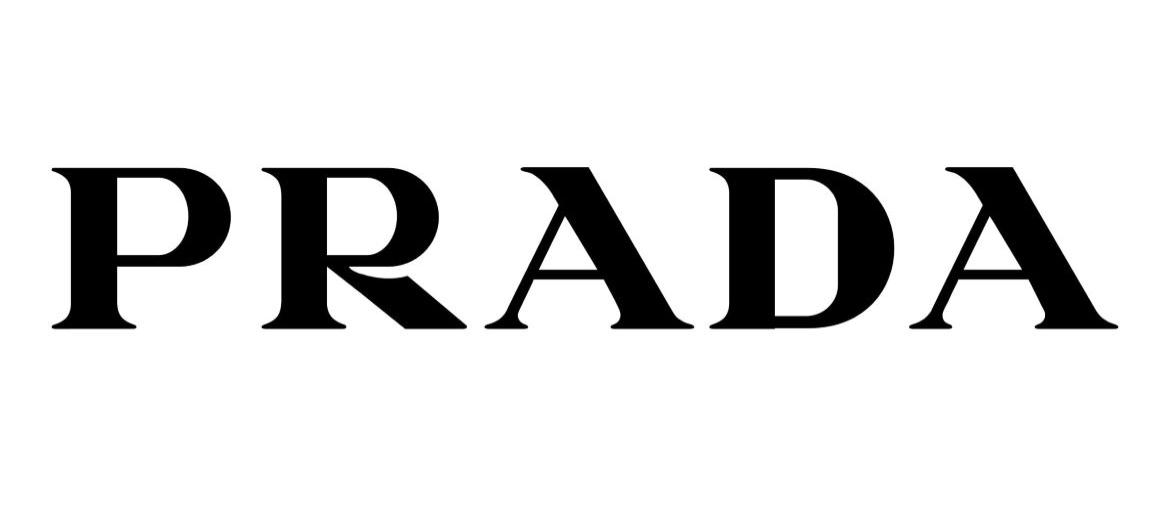
Prada Font
What Font is Prada?
Prada Font uses Rosan, a stylish serif typeface designed by FG Studios. This elegant font mirrors Prada’s sophisticated and luxurious brand identity with its refined curves and balanced proportions. The Rosan font beautifully captures the timeless glamour and minimalism associated with the fashion house. It is free for personal use, making it a great option for designers looking to evoke high-end aesthetics in branding or editorial work.
About Prada
Prada is an iconic Italian luxury fashion brand founded by Mario Prada in 1913. Renowned for its modern elegance, clean lines, and innovative designs, Prada has become a global symbol of style and prestige. The brand’s creative direction, under Miuccia Prada, has continually redefined fashion through bold experimentation, architectural silhouettes, and intellectual sophistication.